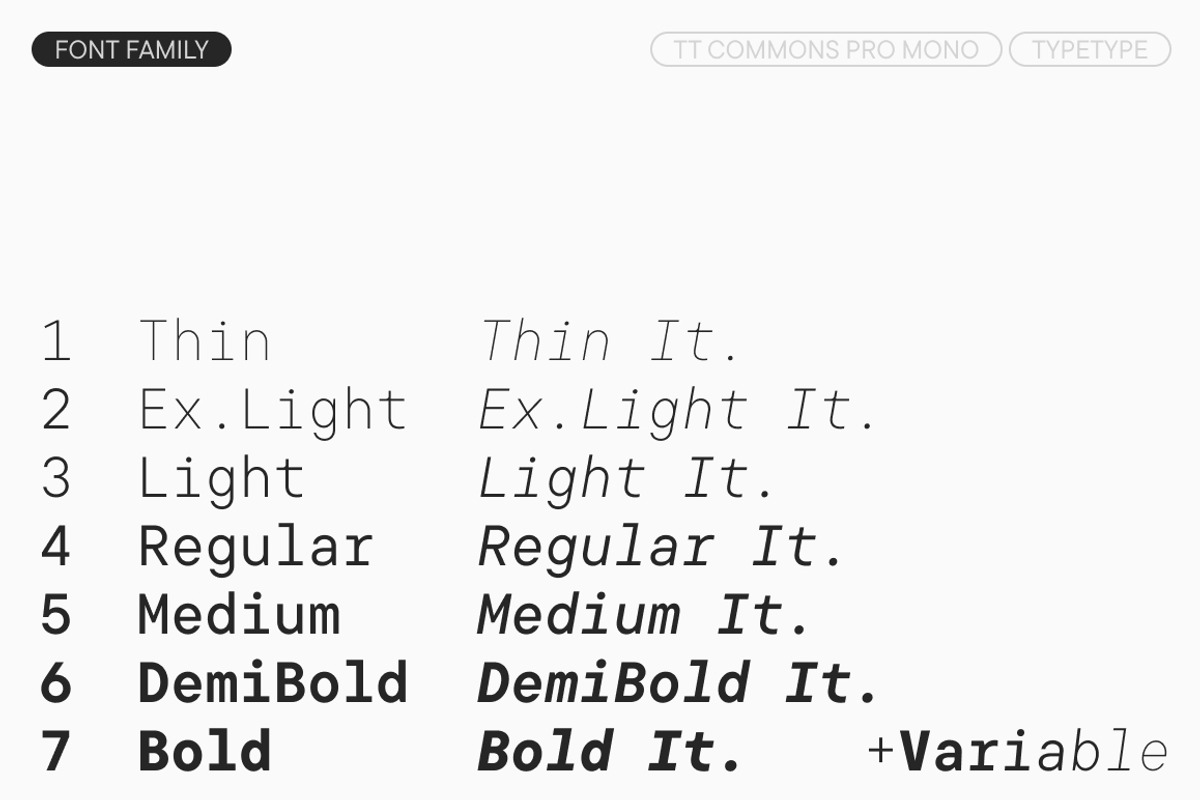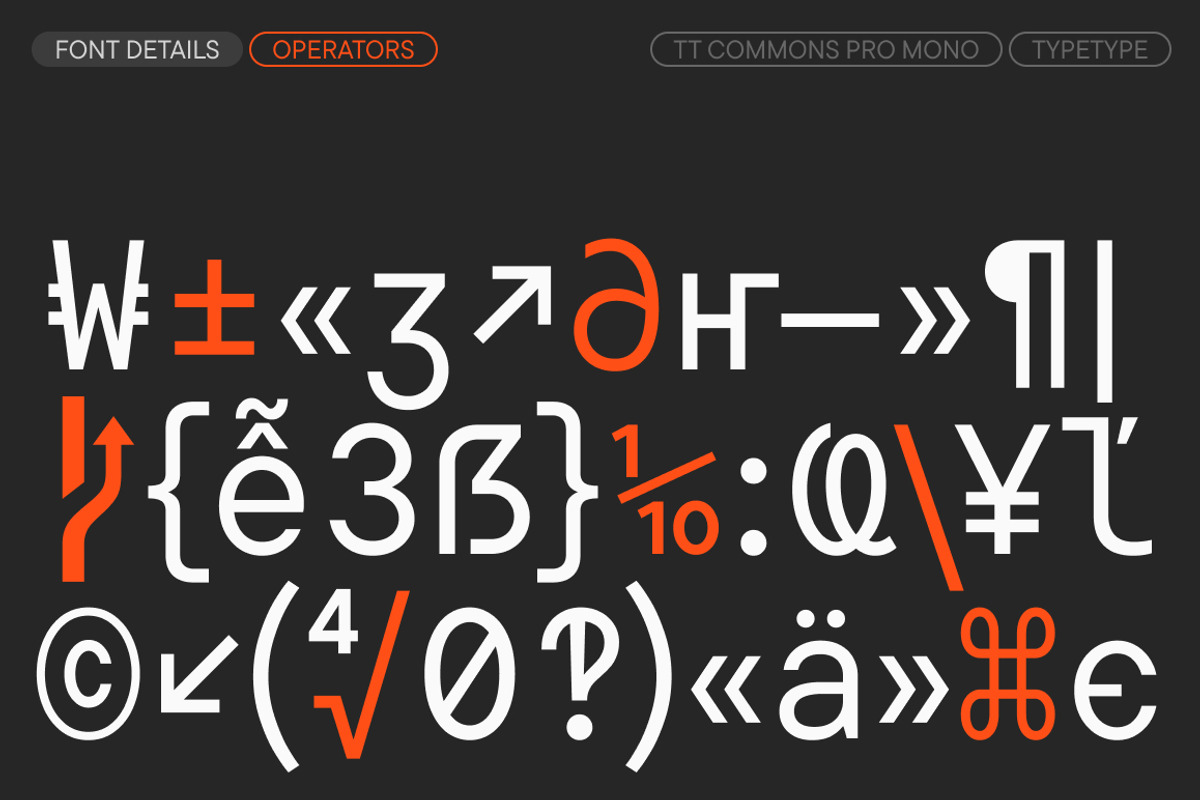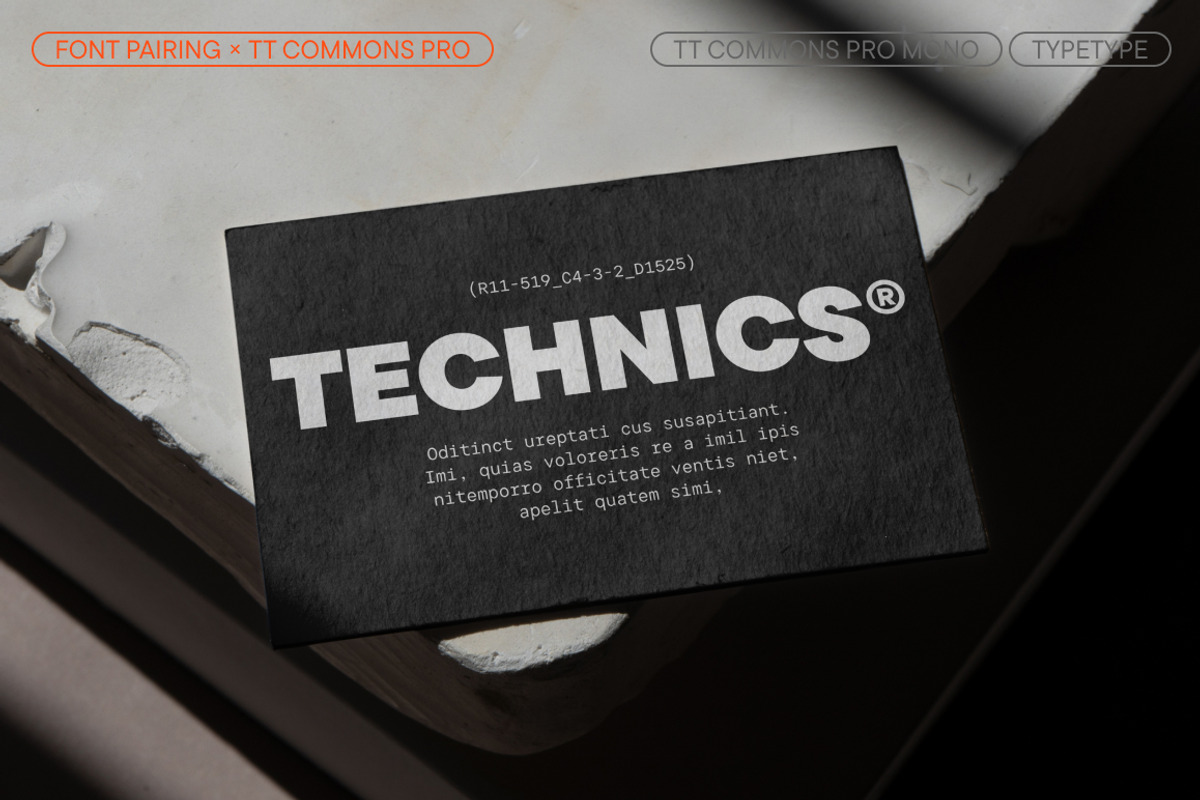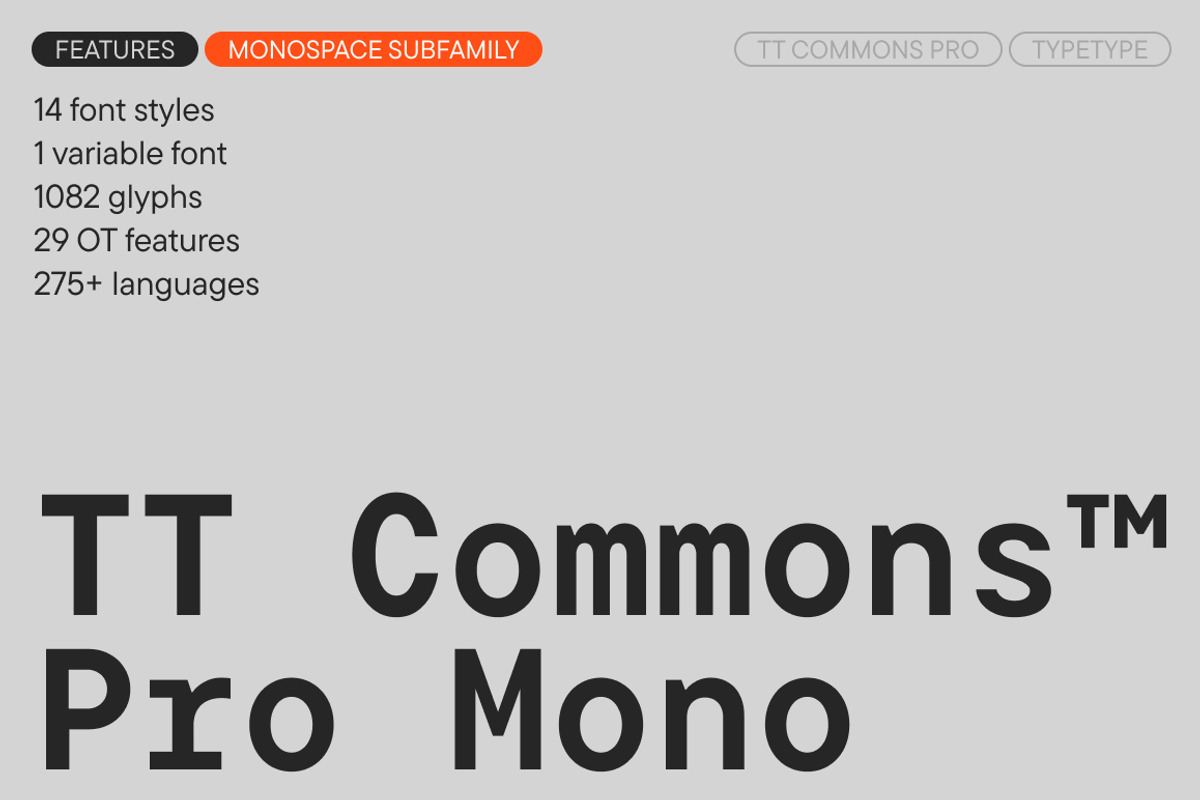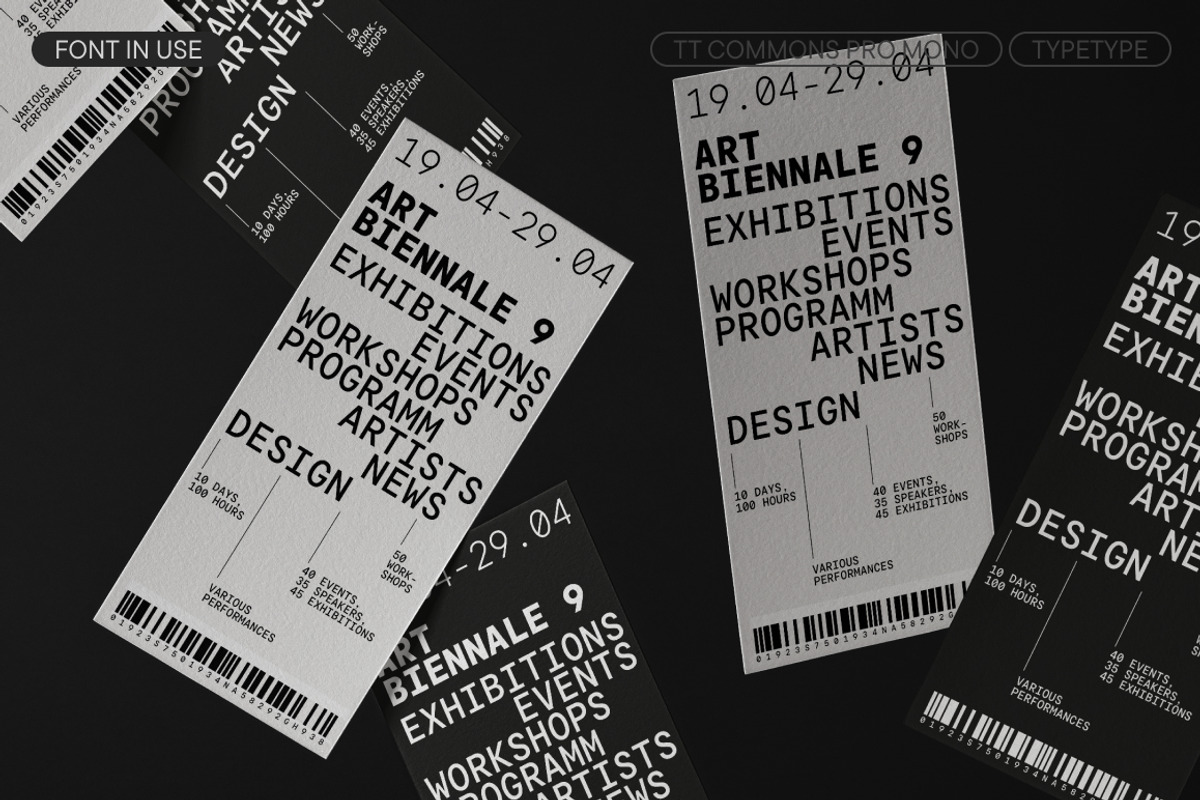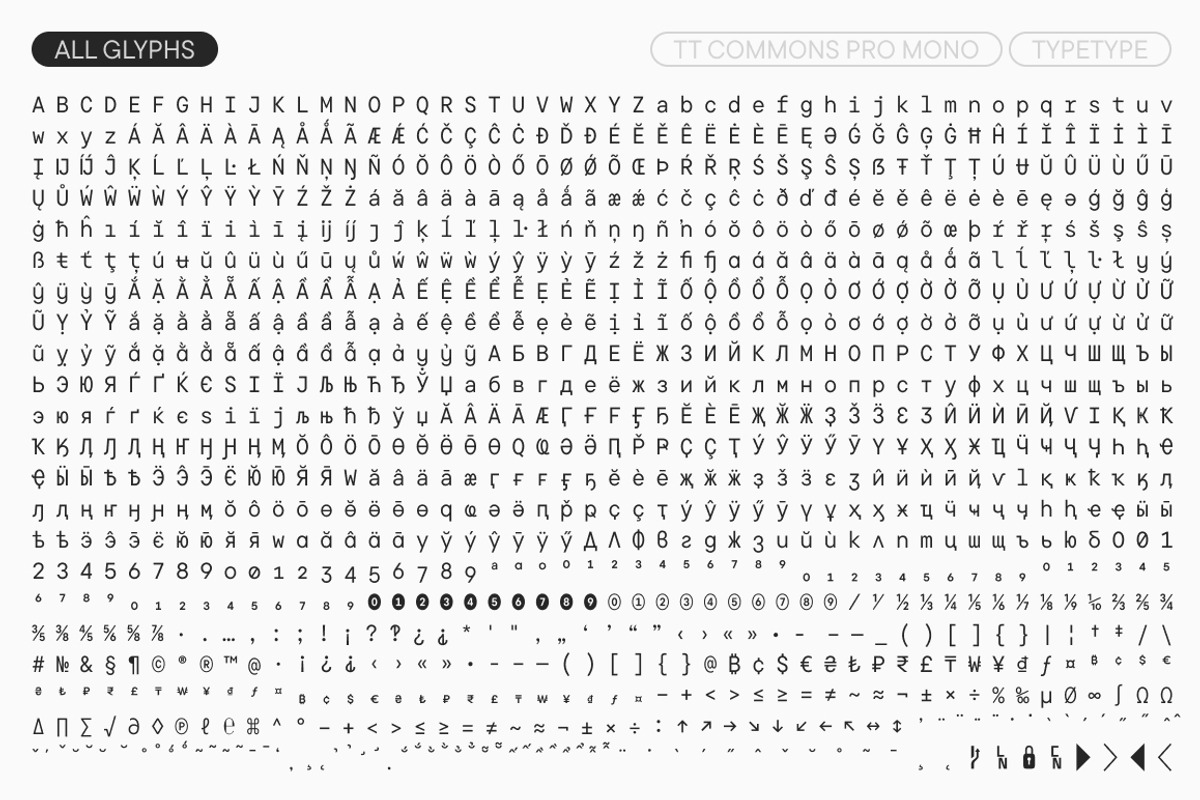
TT Commons Pro Mono
Introducing TT Commons™ Pro version 3.600!
We've enhanced our bestseller, making it even better: we've expanded the character set and added new stylistic alternates.
TT Commons™ Pro is a geometric sans serif. It is one of the studio's most in-demand typefaces, recognized for its versatile character, extensive character set with support for a vast number of languages, and a functional set of OpenType features.
Mono - 14 styles
TT Commons™ Pro became a bestseller for a reason: its range of application isn't just broad—we dare say it's limitless! Among the case studies featuring this font are tech companies, apparel brands, charitable organizations, food products, and many more. If you need an all-purpose typeface that is suitable for both everyday tasks and creating stylish designs—you've found it!
We regularly maintain the font, updating its technical components and expanding the character set. Thus, in version 3.600, the character set has been expanded, and a new stylistic set with numerous ductal character forms has been added. This further expands the font's possibilities, allowing it to be transformed from calm and neutral to distinctive and attention-grabbing. We have added these alternate forms to the Latin, Cyrillic, Vietnamese, Greek, Bulgarian, and Serbian localizations.
The possibilities of TT Commons™ Pro are very broad. The font is recommended for use on the web, in print, for branding and packaging design, and in applications.
Currently, the TT Commons™ Pro typeface includes:
- 5 different widths/subfamilies: Normal with classic proportions, the narrower Condensed, Compact with more compact proportions, Expanded with extended proportions, and the monospaced Mono font.
- 22 styles each in the Normal, Compact, Condensed, and Expanded widths: Thin, ExtraLight, Light, Regular, Normal, Medium, DemiBold, Bold, ExtraBold, Black, and ExtraBlack, and their corresponding italics.
- 14 styles in TT Commons™ Pro Mono: Thin, ExtraLight, Light, Regular, Medium, DemiBold, and their corresponding italics.
- 2 variable fonts: TT Commons™ Pro Variable, which varies by width, slant, and weight, and TT Commons™ Pro Mono, which varies by weight and slant.
- Over 1,546 glyphs in each Mono style, and over 2,276 glyphs in each Normal, Condensed, Expanded, and Compact style.
- Impeccable kerning and manual TrueType hinting.;
- 42 OpenType features: numerous ligatures, fractions, numerators, superscripts, alternate stylistic sets, and localization features.
- Support for over 280 languages, including Greek and Vietnamese.
TT Commons™ Pro — the flawless foundation for your font wardrobe!
Full list of OpenType features: aalt, ccmp, ordn, locl, case, frac, sinf, subs, sups, numr, dnom, tnum, onum, lnum, pnum, c2sc, ss01 (Letters with serifs), ss02 (Single-storey a), ss03 (Bowl-shaped y), ss04 (Latin y and Cyrillic Y, y with straight terminal), ss05 (Alternative l), ss06 (Romanian Comma Accent), ss07 (Dutch IJ), ss08 (Catalan Ldot), ss09 (Circled Figures), ss10 (Negative Circled Figures), ss11 (Turkish i), ss12 (Bashkir localization), ss13 (Chuvash localization), ss14 (Bulgarian localization), ss15 (Serbian localization), ss16 (Alternative G, g), ss17 (Middle-barred K), ss18 (Et Ampersand), ss19 (Alternative Figures), ss20 (Alternative letters), smcp dlig, liga, calt, salt, zero